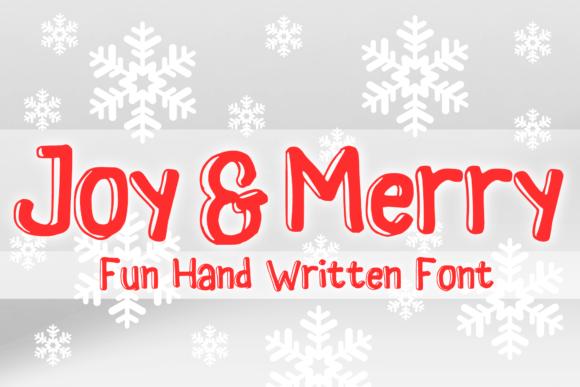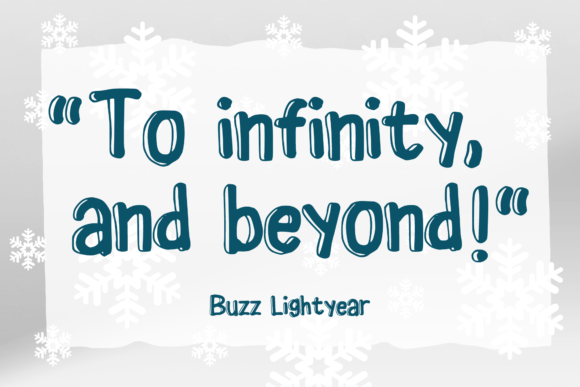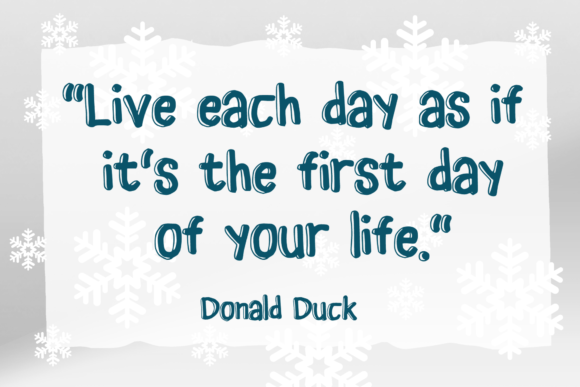
About Joy and Merry Font
Joy and Merry is a Christmasy handwritten font. You can use it for anything ranging from greeting cards to stickers and posters, or anything that needs a casual touch. Fall in love with its incredibly versatile style and use it to create lovely designs!